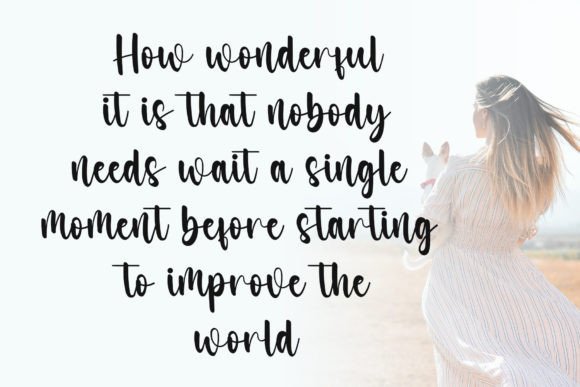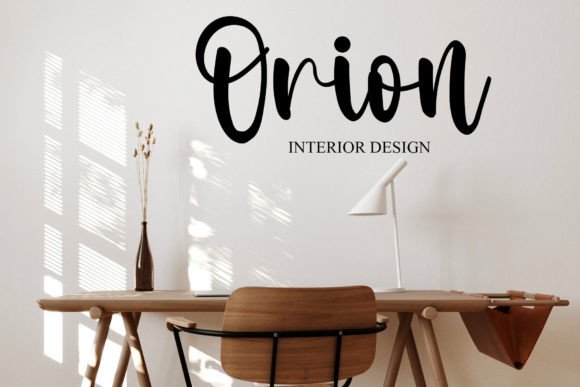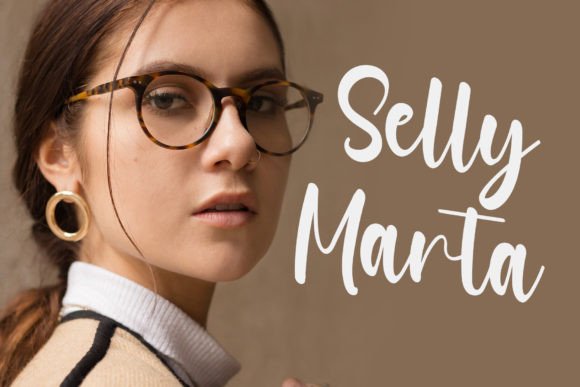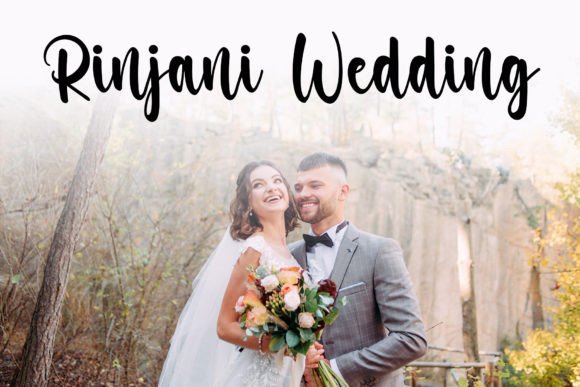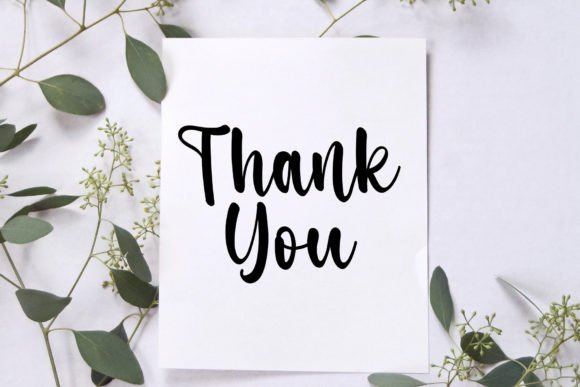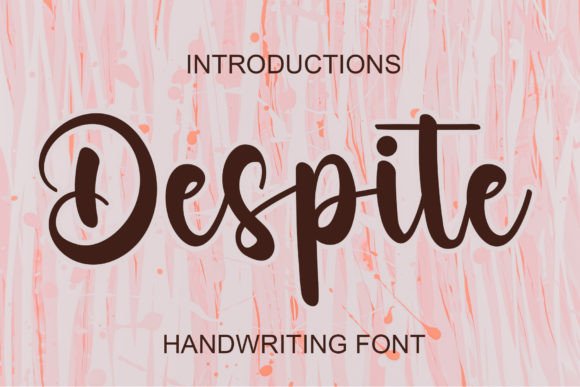
Introducing Despite Font: Elevate Your Designs with Timeless Elegance
In the world of typography, a well-crafted font can make all the difference in elevating your design projects from ordinary to extraordinary. For designers and crafters seeking a stylish and contemporary handwritten font, Despite Font is an exceptional choice. Inspired by timeless classic calligraphy, Despite Font brings a touch of sophistication and elegance to any project.
The Inspiration Behind Despite Font
Despite Font is a beautiful reflection of traditional calligraphy, reimagined for the modern era. Its design is rooted in the classic scripts of the past, yet it boasts a fresh and contemporary atmosphere that sets it apart from more traditional fonts. This harmonious blend of old and new makes Despite Font incredibly versatile, suitable for a wide range of applications, from wedding invitations and branding to packaging and digital media.
Key Features of Despite Font
• Stylish Handwritten Appearance: Despite Font features a stylish, handwritten appearance that adds a personal touch to any project. Its elegant strokes and fluid connections give it a natural, effortless look.
• Contemporary Atmosphere: While inspired by classic calligraphy, Despite Font has a distinctly modern feel. Its clean lines and balanced proportions make it perfect for designs that require a contemporary edge.
• Impeccable Form: The font’s design emphasizes impeccable form, ensuring that every letter and character is beautifully crafted. This attention to detail results in a font that is not only aesthetically pleasing but also highly legible.
• Balanced and Varied: Despite Font offers a balanced and varied design, with a range of characters that provide a natural flow. This variability makes it ideal for creating dynamic and engaging text.
Applications of Despite Font
Despite Font’s versatility makes it suitable for a myriad of design projects. Here are some of the many ways you can use this beautiful font:
• Wedding and Event Invitations: Add a touch of elegance to your wedding invitations, save-the-dates, and other event materials with Despite Font’s sophisticated look.
• Branding and Logo Design: Use Despite Font to create distinctive and memorable brand identities that stand out from the competition.
• Packaging Design: Elevate your product packaging with a font that exudes quality and style.
• Digital Media: From social media graphics to website headers, Despite Font can enhance the visual appeal of your digital content.
Why Choose Despite Font?
With so many fonts available, why choose Despite Font for your projects? Here are a few compelling reasons:
• Unique Aesthetic: Despite Font offers a unique blend of classic and contemporary styles, making it a standout choice for designers looking for something distinctive.
• High Legibility: Despite its elegant appearance, Despite Font remains highly legible, ensuring that your message is communicated clearly.
• Versatility: Whether you’re working on a digital project or a print design, Despite Font adapts beautifully to different mediums and applications.
Despite Font is a stylish handwritten font that brings a touch of timeless elegance to your design projects. Its contemporary atmosphere, impeccable form, and balanced design make it an excellent choice for designers and crafters seeking to elevate their work. With its wide range of applications and unique aesthetic, Despite Font is sure to become a staple in your font collection.